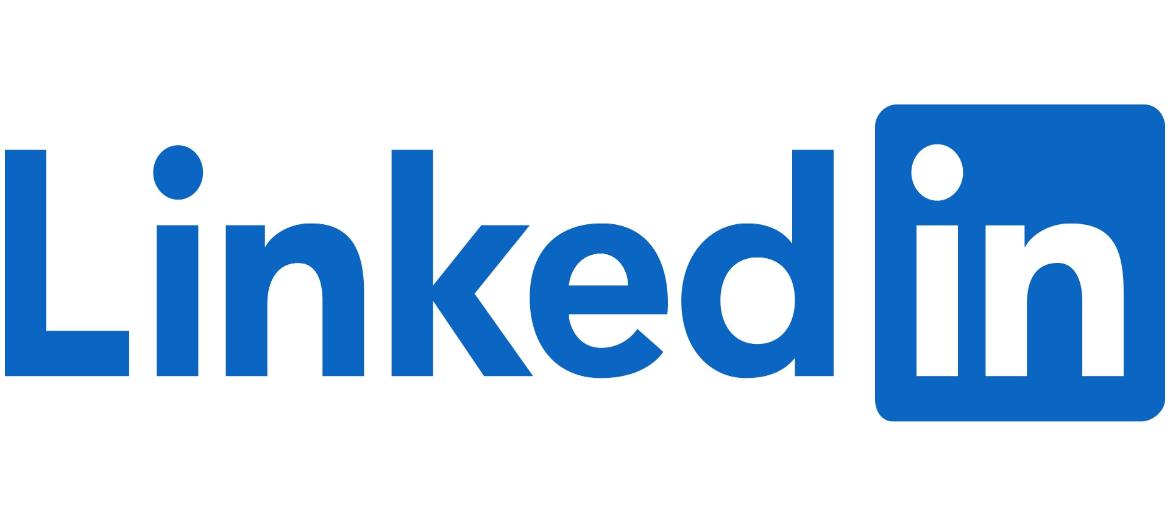
Linkedin Font
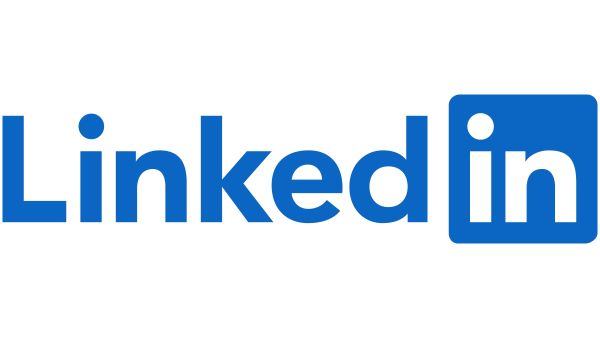
What is The Font Of Linkedin?
The LinkedIn Font is Avenir Pro 95 Black, the typeface used in LinkedIn’s logo and branding. It is a geometric sans-serif font with clean lines, balanced proportions, and strong weight, giving the LinkedIn wordmark a professional, modern, and trustworthy appearance. The bold structure communicates stability, clarity, and corporate credibility, perfectly matching LinkedIn’s role as a global professional network.
About LinkedIn
LinkedIn is a professional social networking platform launched in 2003. It allows users to create resumes, connect with colleagues, apply for jobs, and build professional relationships. Over the years, LinkedIn has become the world’s largest professional network, used by individuals, recruiters, and companies across virtually every industry.
The platform’s visual identity reflects its mission of connecting professionals and building careers. The clean logo, simple blue color scheme, and strong typography reinforce LinkedIn’s image as a reliable, business-focused, and globally trusted platform.